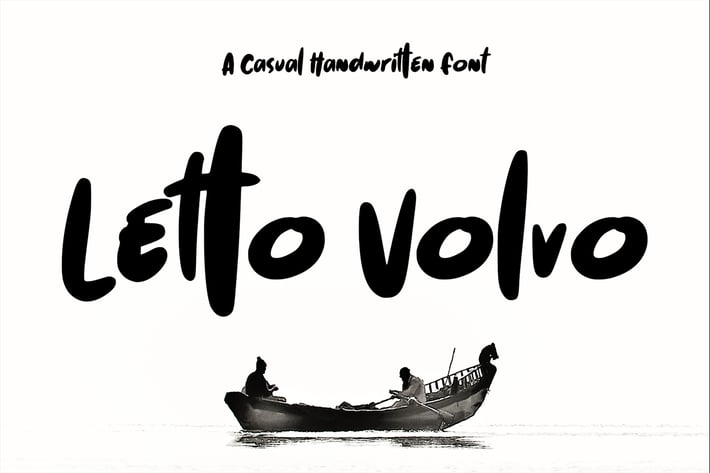
Letto Volvo - Casual Script Font
Letto Volvo // Casual handwritten Font
Letto Volvo is a relaxed and charming display font. Whether you use it for cartoon-related designs, children's games, or just any creation that requires a lovely touch, this font will be an amazing choice.
It has beautiful and well-balanced characters and as a result, it matches a wide pool of designs. Driana Brideth features a varying baseline, smooth lines, gorgeous glyphs, and stunning alternates. Add it to your most creative ideas and notice how it makes them come alive!
Stylish modern handwritten script
Unique Swash (Underline)
Special Ligatures